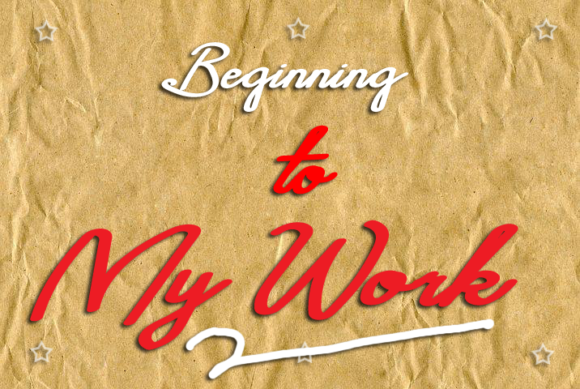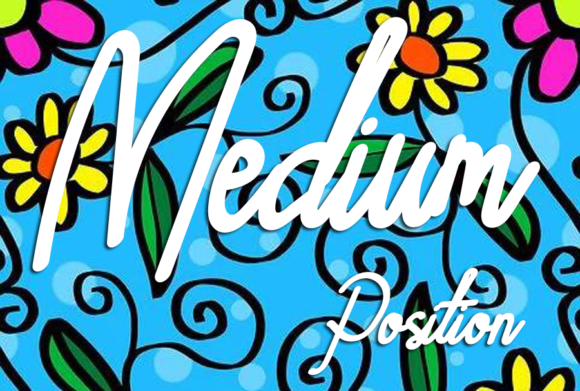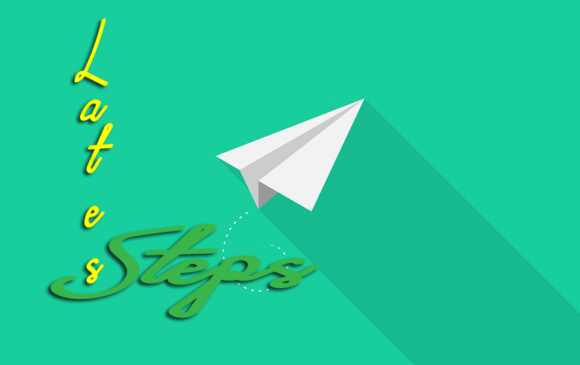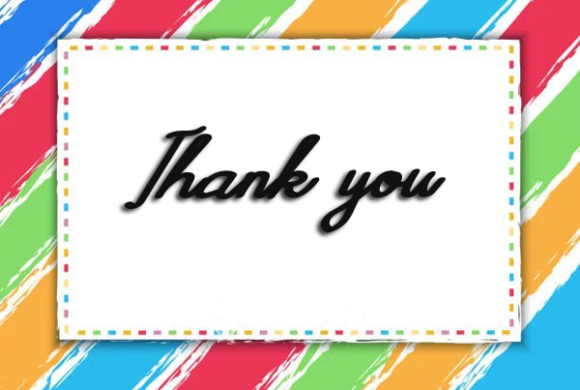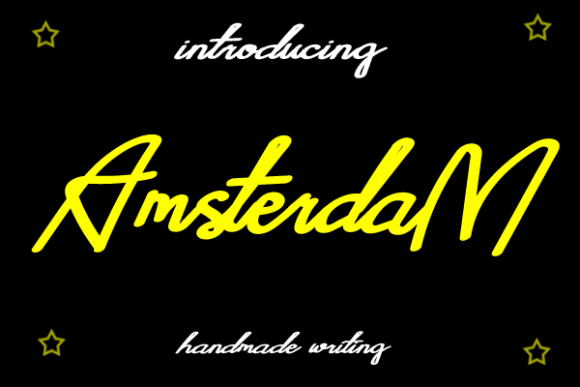
The AmsterdaM Font: A Simple yet Powerful Design Tool
I’ll never forget the time I was working on a project for a client who wanted a fun and friendly vibe. I had all the design elements in place, but I was struggling to find the perfect font. That’s when I stumbled upon the AmsterdaM font, a simple and flowing handwritten font that completely transformed my design. In this article, I’ll share my experience with AmsterdaM, its features, and how to make the most of it in your designs.
An Honest Review of AmsterdaM Font
Here’s what I love about AmsterdaM:
- ✨ Simple and flowing handwritten style that’s easy to read
- ✅ Highly adaptable to various design ideas and projects
- ✅ Fun and friendly touch that resonates with a wide audience
- ✅ Great for both digital and print designs
However, I did notice a few quirks:
- 🤔 Limited character set compared to some other fonts
- ⚠️ May not be suitable for very formal or corporate designs
Exploring OpenType Features, Glyphs, and Stylistic Alternates
AmsterdaM font offers a range of OpenType features, glyphs, and stylistic alternates that can enhance your design. Here are a few examples:
- Stylistic alternates: AmsterdaM offers stylistic alternates that can be used to create a more playful or formal look.
- Glyphs: The font includes a range of glyphs that can be used to add decorative elements to your design.
- Ligatures: AmsterdaM supports ligatures that can be used to create a more fluid and natural look.
The Backstory of AmsterdaM Font
AmsterdaM font was designed with the goal of creating a simple and flowing handwritten font that’s easy to read and fun to use. The designer wanted to create a font that’s versatile and adaptable to various design ideas and projects. The result is a font that’s perfect for creative projects, branding, and marketing materials.
| Font Name | AmsterdaM Font |
| Author | AA studio |
| What is the AmsterdaM font? | AmsterdaM is a simple and flowing handwritten font that’s perfect for creative projects, branding, and marketing materials. |
| What are the benefits of using AmsterdaM font? | The benefits of using AmsterdaM font include its simplicity, readability, and adaptability to various design ideas and projects. |